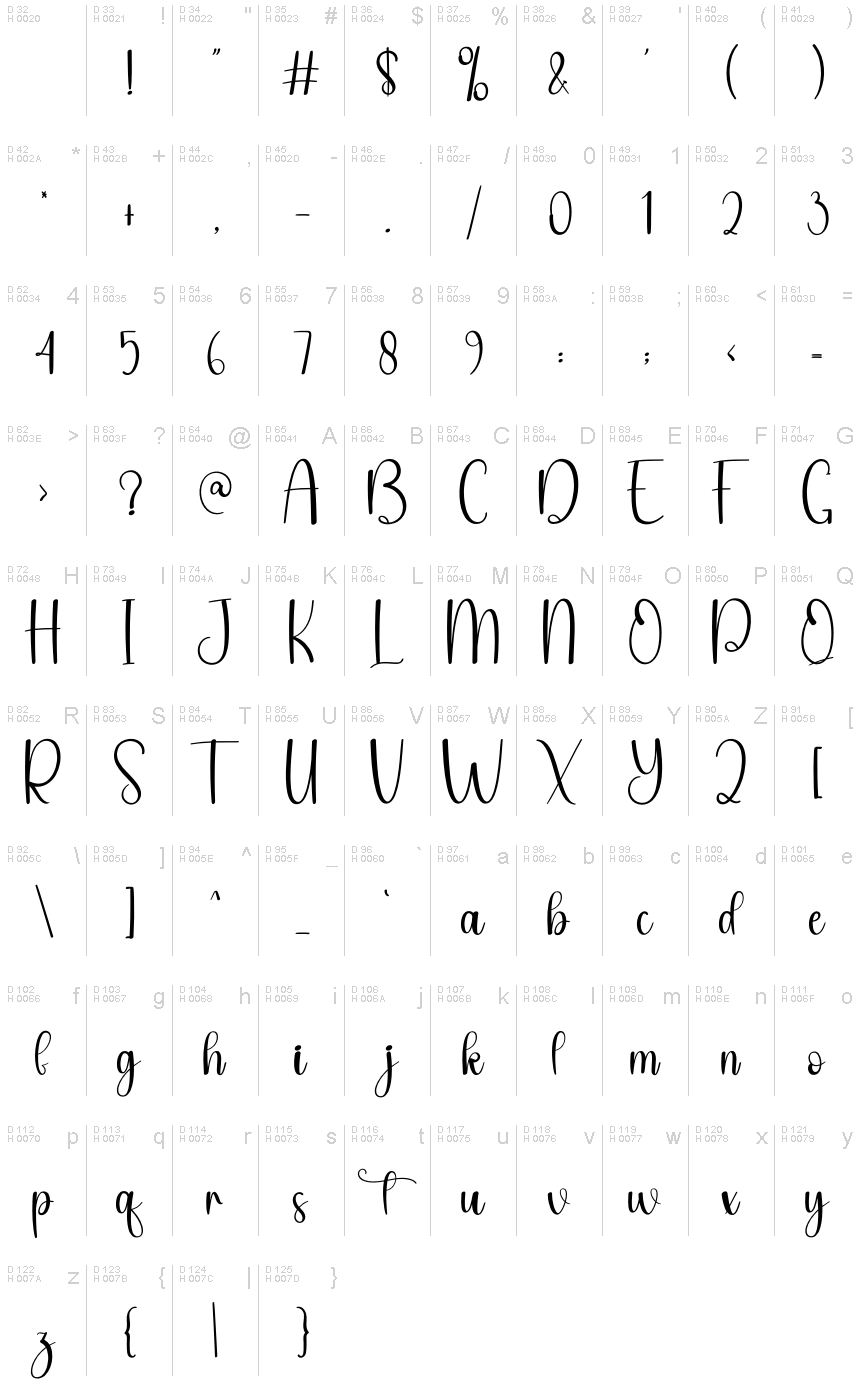
Study Book
Study Book is a delightfully whimsical handwritten display font that exudes a sweet and friendly charm. Its playful, cursive letterforms evoke a sense of warmth and approachability, making it an ideal choice for wedding invitations, greeting cards, or any design that calls for a touch of elegance and playfulness.
The fluid, organic strokes of this font lend a sense of movement and liveliness to the text, while the subtle variations in line thickness add depth and character. Study Book effortlessly blends the formality of a traditional script with a modern, casual sensibility, creating a versatile typeface that can elevate a wide range of design projects.